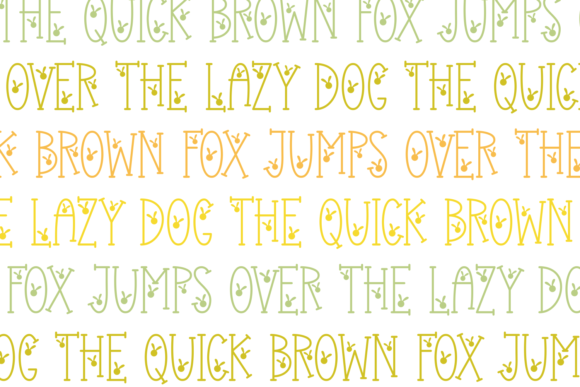
Fun Easter Font
db-ku.com - Script & Handwritten -- Fun Easter is a sweet and fun handwritten font. Add this tin lettered and friendly handwritten font to each of your Easter designs and notice how easily they stand out.